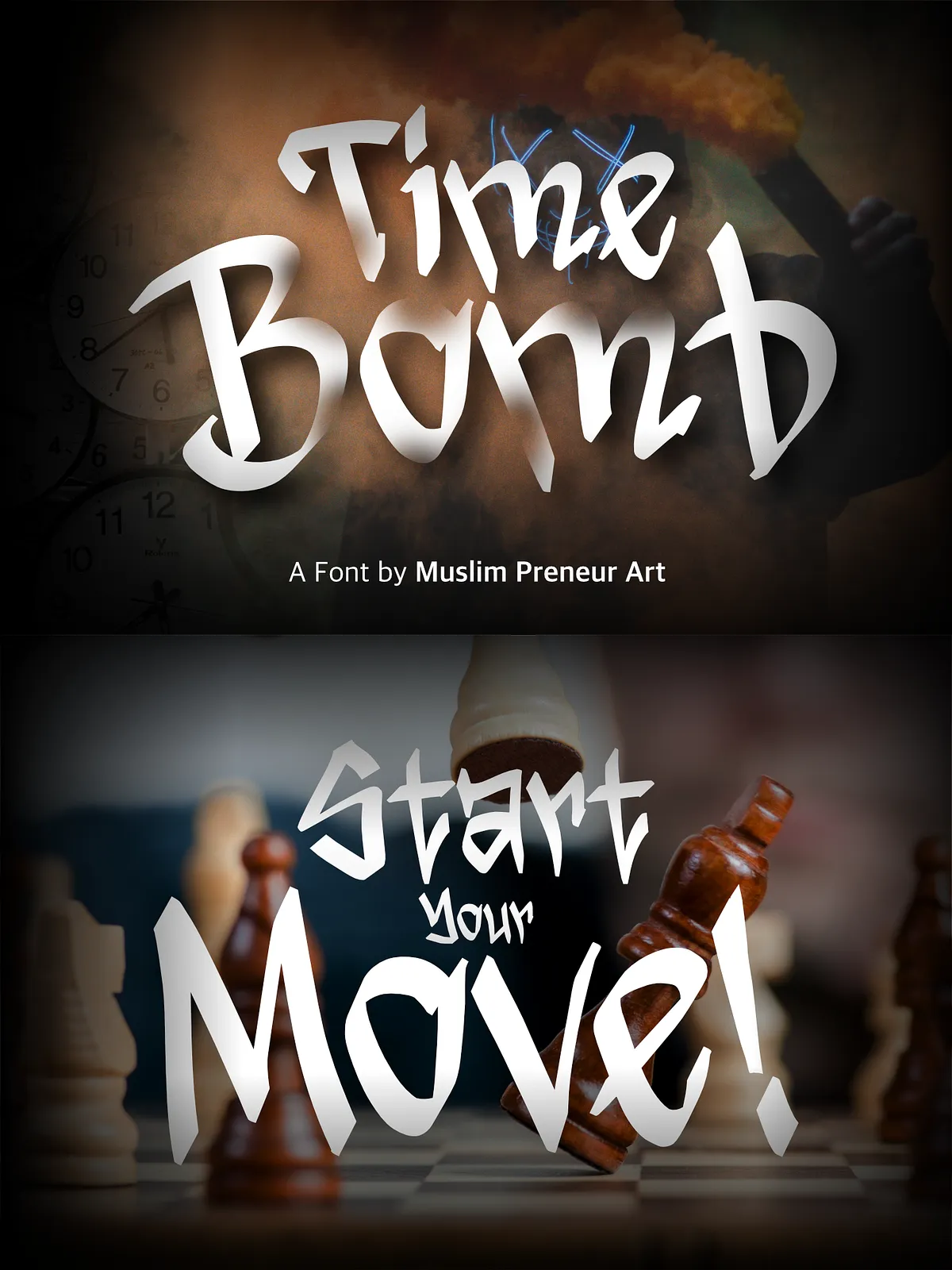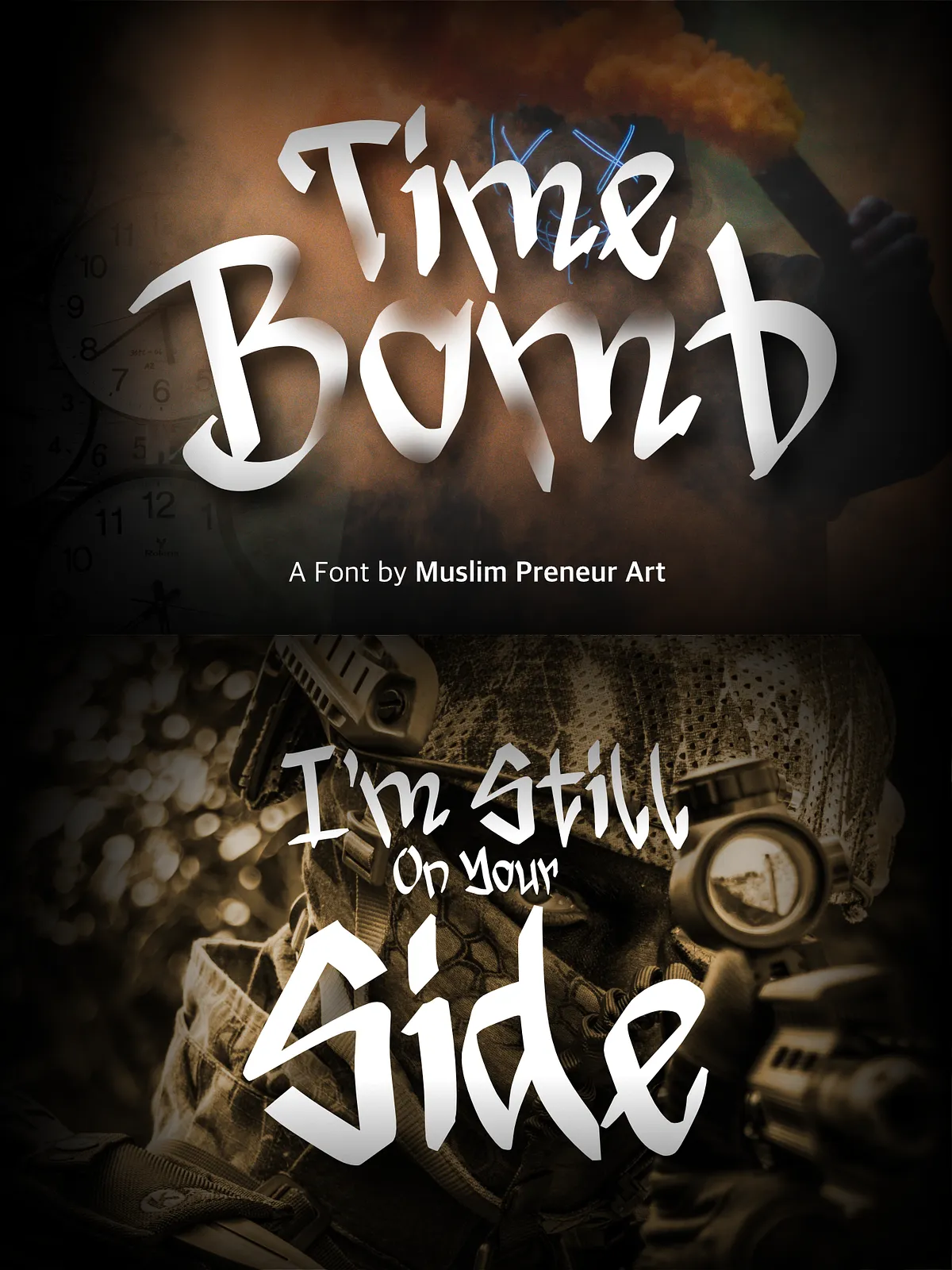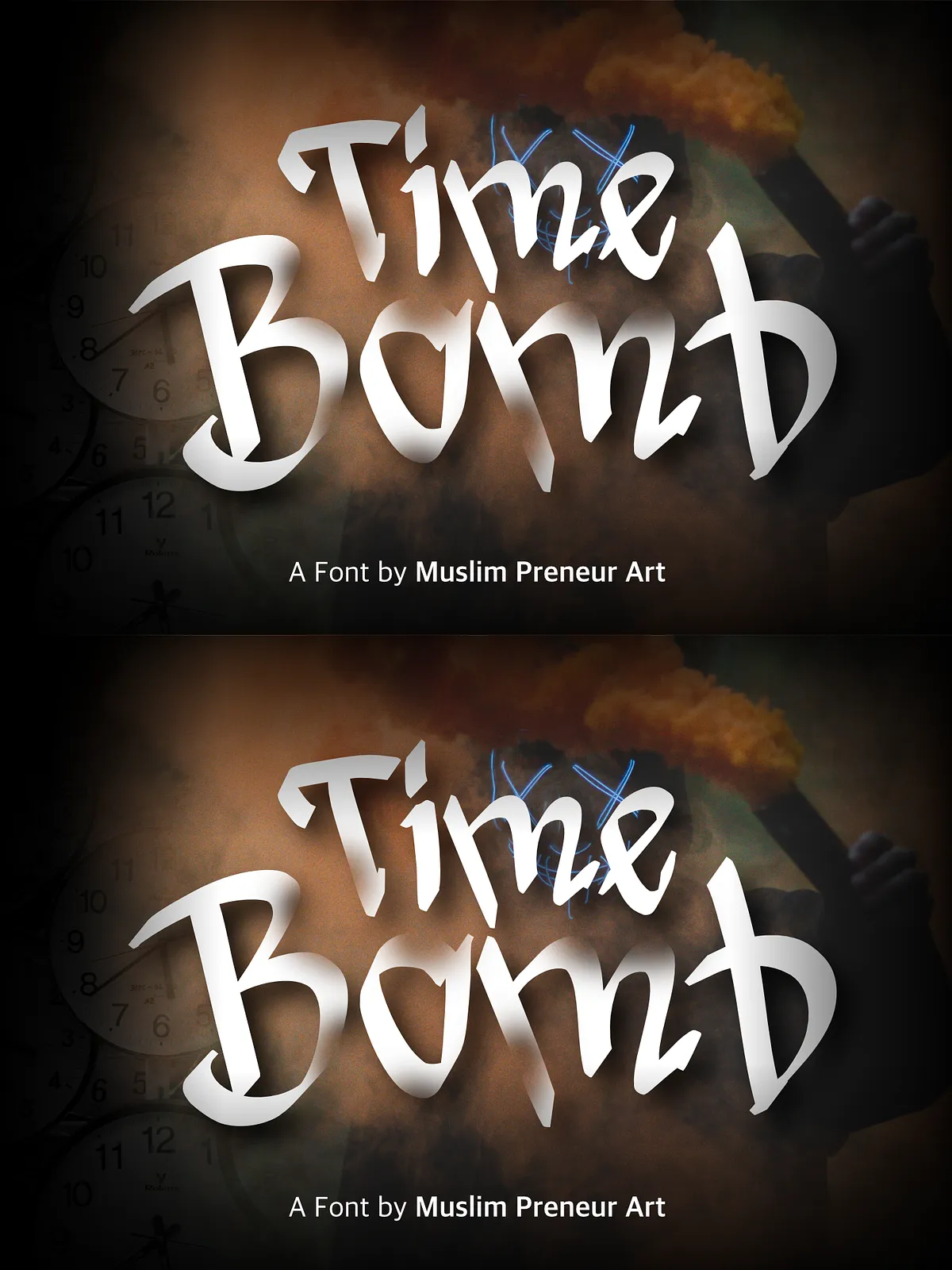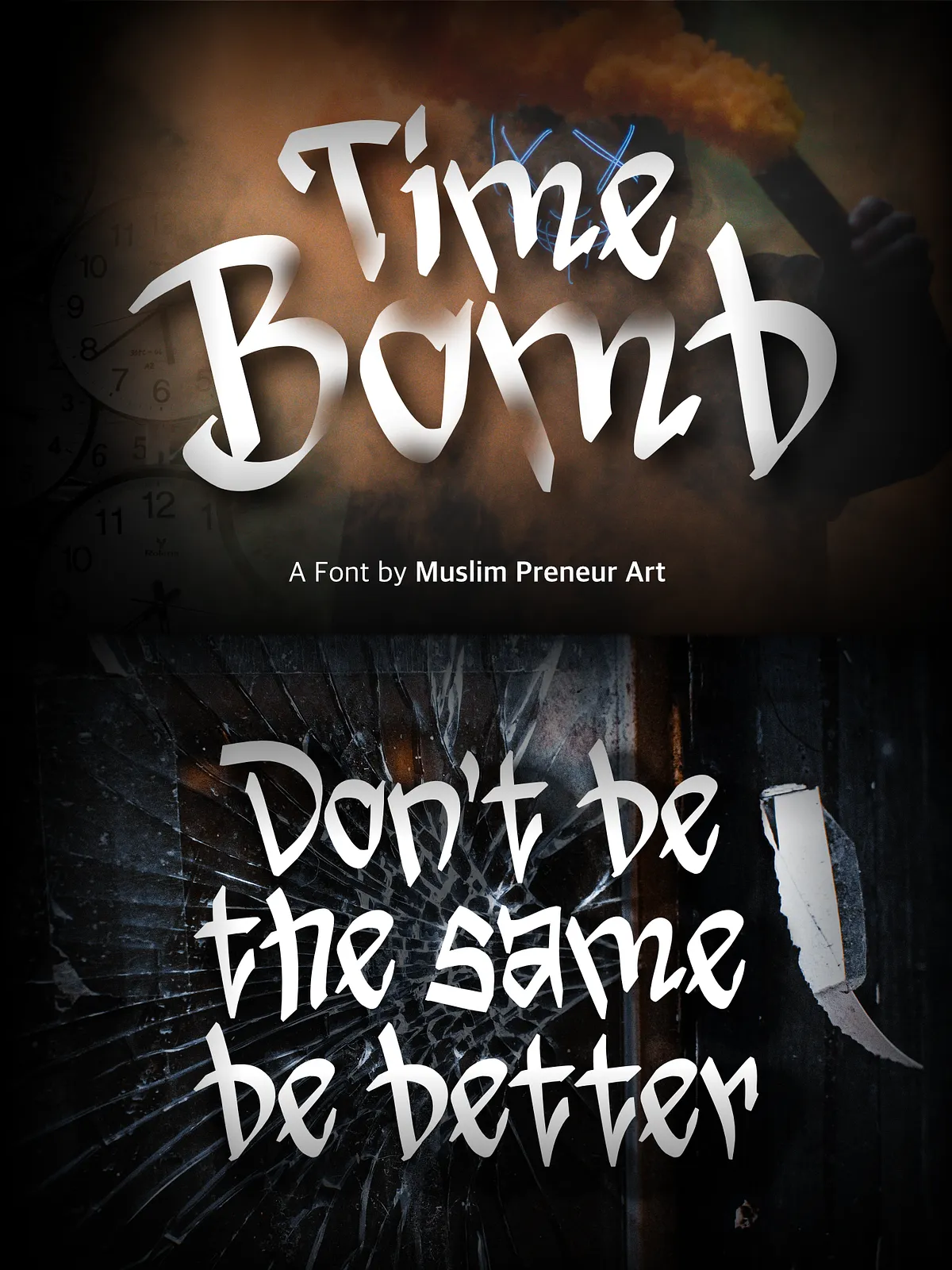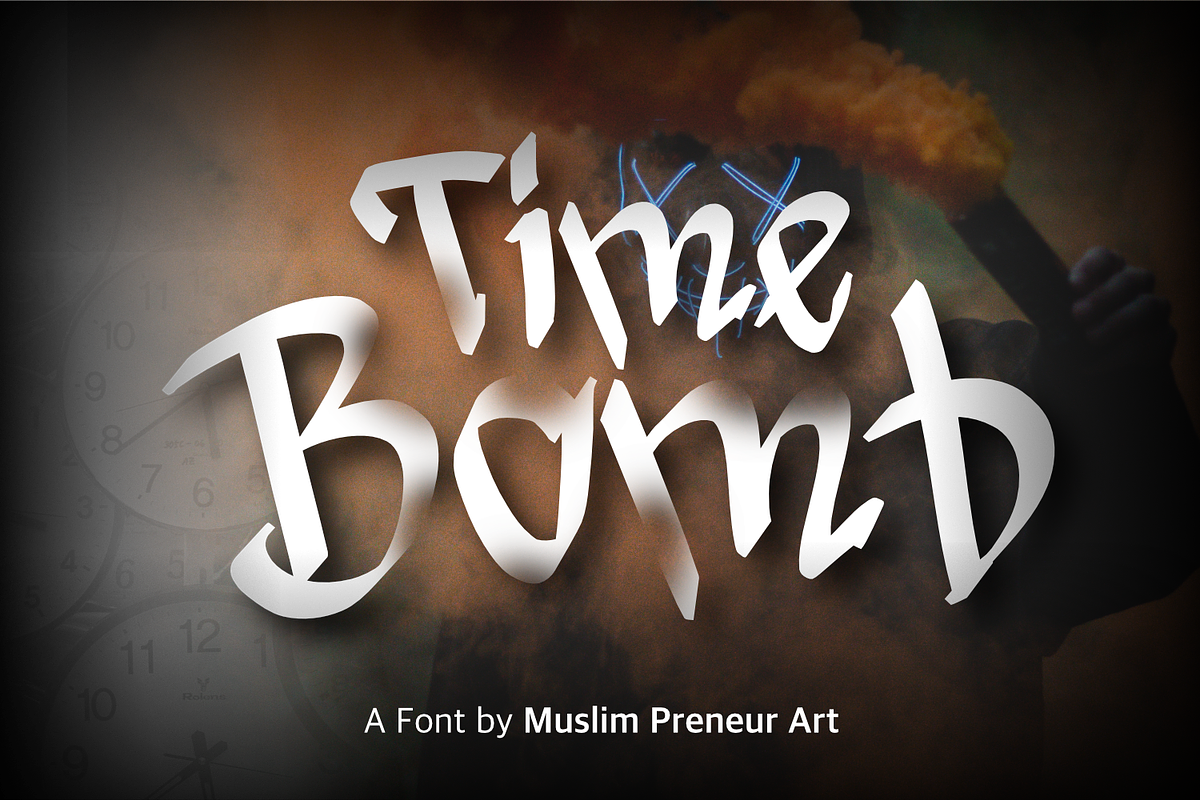
TIME BOMB
Time Bomb delivers bold, street-ready attitude with refined legibility. Created by Muslim Preneur Art, this handstyle graffiti font blends raw energy with carefully balanced letterforms so your headlines, logos, and packaging cut through visual noise. Time Bomb activates designs that demand presence: it anchors identity systems, elevates editorial spreads, and amplifies merchandise with striking, intentional strokes.
Design Character
Handcrafted Graffiti Aesthetic
Time Bomb captures the motion and spontaneity of spray-painted lettering while preserving structural clarity. Each glyph shows dynamic rhythm and confident gesture, producing authentic graffiti flavor without sacrificing reading speed. The result reads expressive on large scales and remains legible at close range.
Bold & Readable Construction
The typeface emphasizes thick strokes and open counters to maximize contrast against busy backgrounds. Designers will find that Time Bomb holds shape in print, on apparel, and across digital displays. It balances rebellious character with practical readability, making it suitable for both artistic and commercial applications.
• Uppercase and lowercase character sets for flexible typographic expression
• Full numerals and punctuation for professional layouts
• Handstyle letterforms that retain legibility at display sizes
• Optimized vector outlines for crisp output in print and screen
• Clean spacing and consistent metrics to integrate easily into design workflows
Ideal Applications
Time Bomb excels wherever attitude and impact matter. Recommended uses include:
• Event posters and concert flyers — command attention with bold headings
• Streetwear and apparel graphics — translate graffiti energy to clothing and merch
• Logotypes and wordmarks — create memorable, urban identities
• Packaging and product labels — add gritty personality on shelf and online
• Magazine covers and editorial headlines — deliver dramatic typographic statements
• Social media graphics and promotional banners — stop the scroll with high-impact lettering
Practical Tips for Designers
Pairing Recommendations
Pair Time Bomb with neutral, clean typefaces for supporting copy. A geometric sans-serif or a humanist sans pairs well because it offsets the font’s bold, expressive shapes. Use Time Bomb for headlines, logotypes, and short phrases while reserving body text for a simpler face to maintain hierarchy and readability.
Color, Texture, and Effects
Apply high-contrast color combinations — black on neon, white on saturated fields — to amplify the font’s presence. Time Bomb responds well to tactile effects such as spray textures, halftone overlays, and distressed masks. For modern contexts, maintain flat colors and subtle shadows to preserve clarity.
Why Choose Time Bomb
Choose Time Bomb when you want a graffiti-inspired display typeface that performs across media. It fuses street art authenticity with carefully tuned shapes, enabling designers to craft bold identities and compelling headlines that remain readable and distinctive. Time Bomb turns words into visual statements.